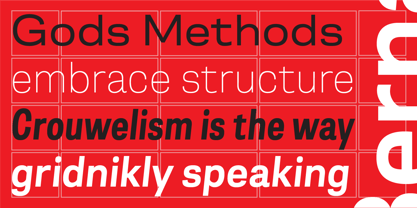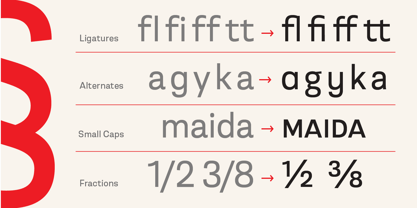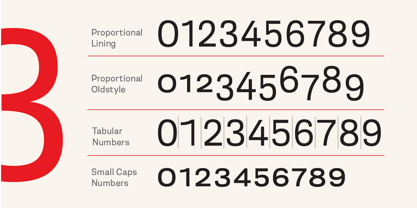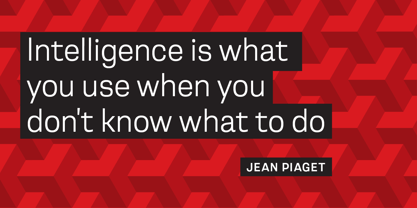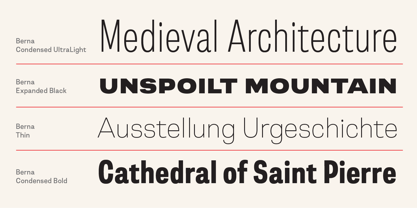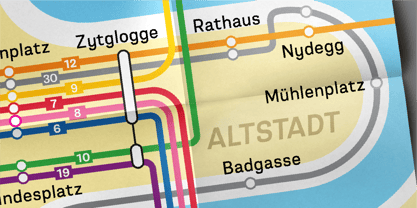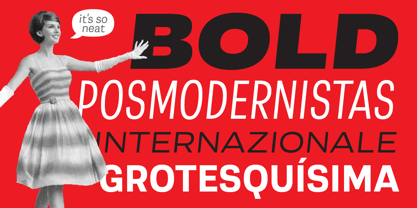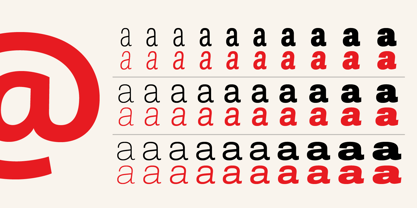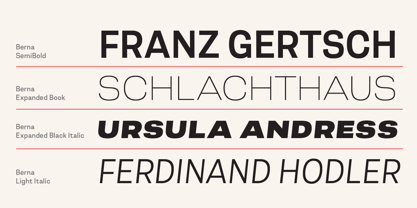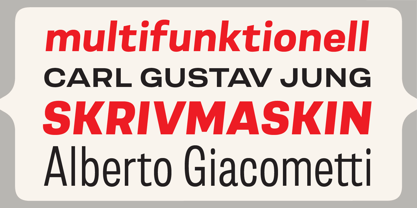
Berna
The Berna Font Family was designed by Rodrigo López Fuentes and published by Untype. Berna contains 60 styles and family package options. More about this family
Berna — a sans serif conceived as a system. Berna is a contemporary sans serif inspired by the International Typographic Style. Rooted in the grotesque tradition, it approaches modernism as a method rather than a visual formula. Its design balances the informal legacy of early sans serifs—emerging from manual lettering—with the structural precision of the modern grid. Its modernist character is expressed through the project’s systemic conception. Berna was developed from the outset as a versatile and functional modern sans serif family, where every weight and width forms part of a coherent architectural framework. Conceived to operate as a true corporate sans serif and editorial system, it is not a collection of styles but a structured typographic system designed for consistency and scalability. The family comprises 60 styles, organized into three width systems — Condensed, Standard, and Expanded — each with a full weight progression and corresponding obliques. This structure allows precise modulation of density, rhythm, and hierarchy, supporting scalable brand identities, rigorous editorial design, corporate communication, and digital interfaces. Formally, Berna maintains a balance between naturalness and control: it preserves a subtle organic tension in its curves and terminals while sustaining structural coherence across widths and weights. The result is a technical, contemporary, and highly functional grotesque. Berna is not simply a modern sans serif. It is a typographic system built to construct with order, clarity, and range.